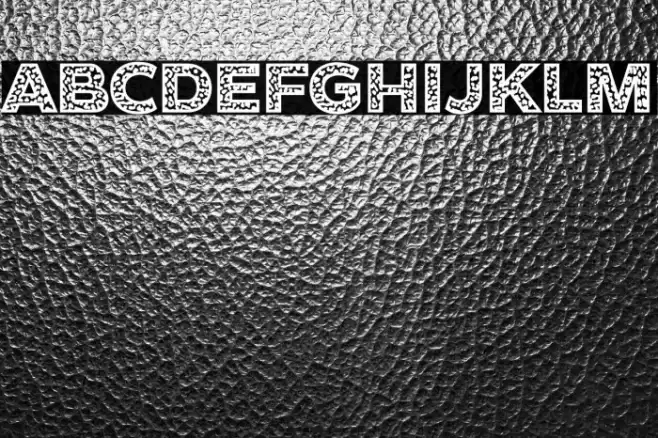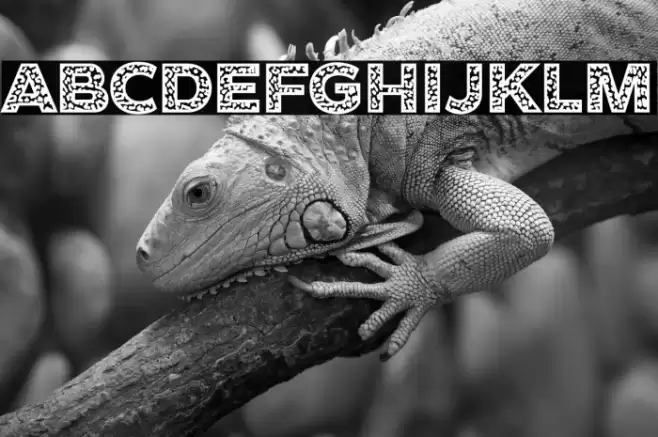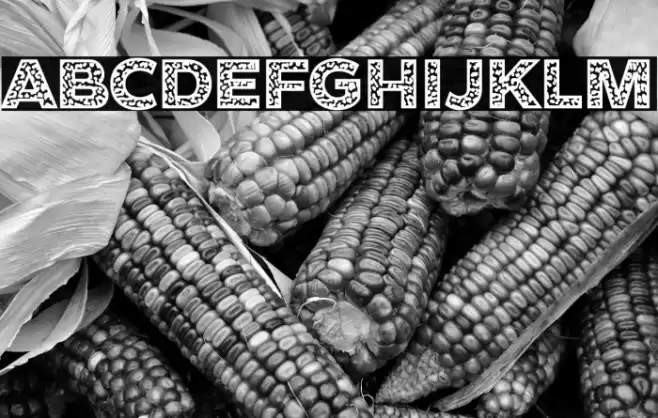
Cheetah Font
Cheetah Description
This font features a bold and playful design with a distinctive animal print pattern filling each character. The uppercase and lowercase letters are crafted with a consistent thickness, creating a cohesive look. The pattern within the letters adds a dynamic and energetic feel, making it ideal for projects that require a fun and eye-catching aesthetic. The characters are well-defined with clear edges, ensuring readability despite the intricate design. This font is perfect for creative projects that aim to stand out and make a statement.
A bold, playful font with an animal print pattern, ideal for eye-catching designs from Uncategorized fonts.
- Font: Cheetah
- Proposed Projects: Great for children's book covers, playful branding, event posters, and fashion-related graphics.